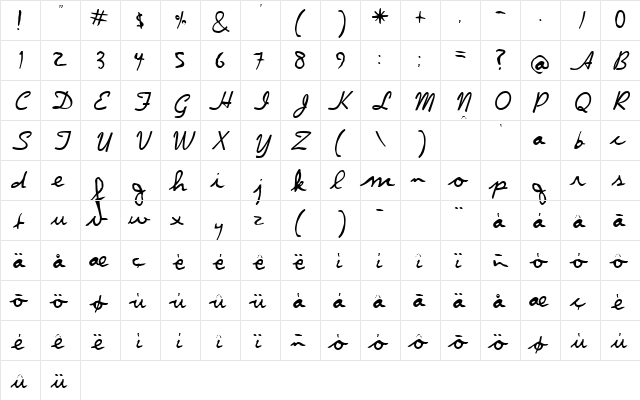
DpScript Regular
Design Context for DpScript Typeface
DpScript brings a calligraphic fluidity to the page — its connecting strokes and expressive curves give it an unmistakably human quality.
Font Pairing: Combine DpScript with a simple geometric sans for maximum contrast — the tension between flowing curves and clean structure is a classic typographic pairing.
Pro Tip: Use DpScript for short runs of text — names, titles, or taglines. Extended body copy in script faces tires the eye quickly.